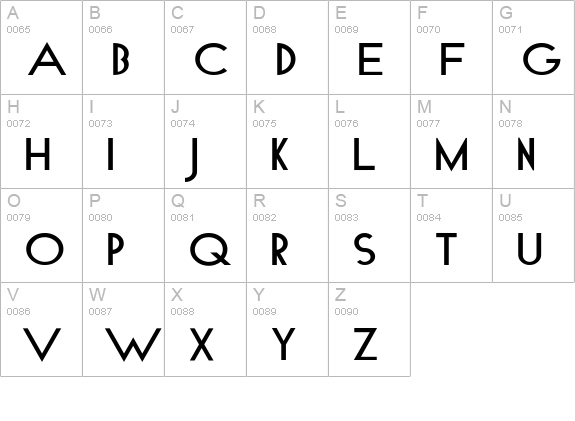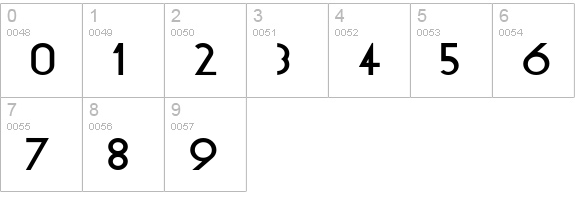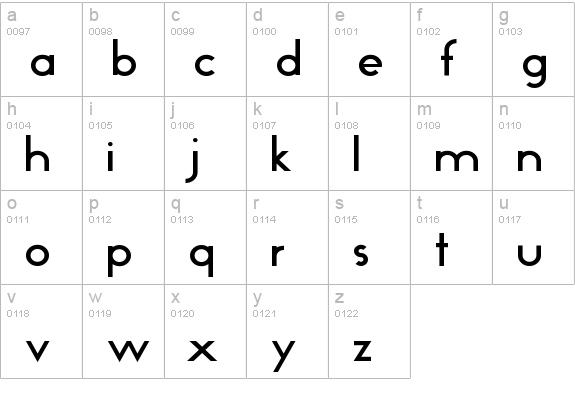
Glo-Bold is a strong, high-contrast variant in the Glo typeface family \xE2\x80\x94 well suited to headlines, attention-grabbing titles, and strong calls-to-action.
Introducing Glo-Bold font, a modern and versatile typeface that exudes confidence and boldness in every character. With its sleek lines and strong presence, Glo-Bold is perfect for making a statement in your designs. Whether you're creating a striking headline or a powerful logo, this font is sure to captivate your audience. And the best part? Glo-Bold is available for free download at FontsMarket.com. Embrace the power of this impactful font without breaking the bank. Don't miss out on the opportunity to elevate your projects with the striking aesthetics of Glo-Bold. Download it now and unleash your creativity!